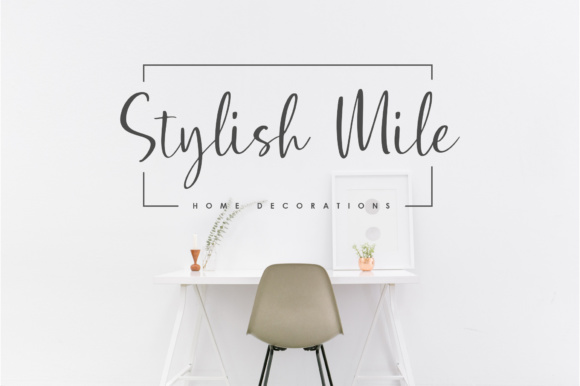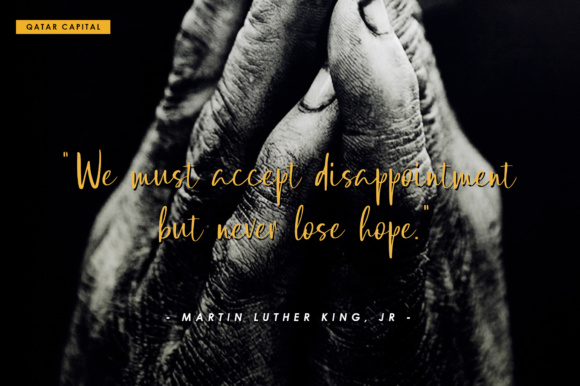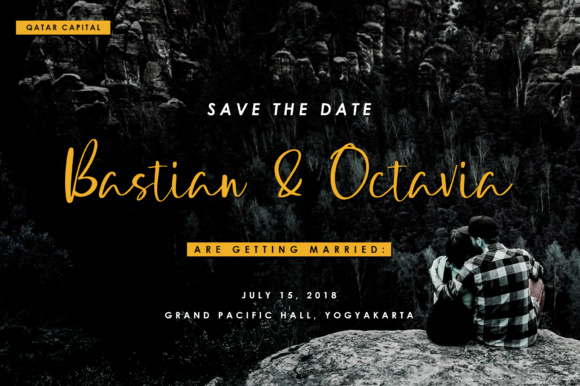
Introduction to Qatar Capital Font
Qatar Capital is a handwritten script font with a natural and authentic look.
Every letter has been carefully crafted to give your design a realistic feel With it’s two styles, Qatar Capital is perfect for branding, logotypes, magazines, website headlines, packaging, and much more.
Qatar Capital Font offers exceptional quality and versatility, making it a valuable addition to your design toolkit. Whether you’re creating for personal projects or commercial use, Qatar Capital Font delivers professional results.